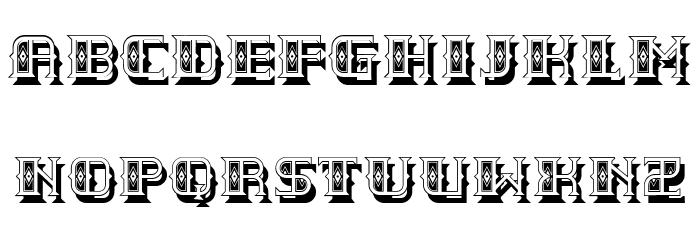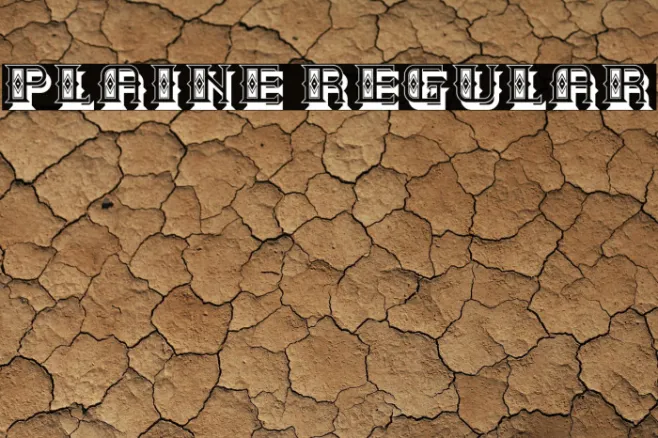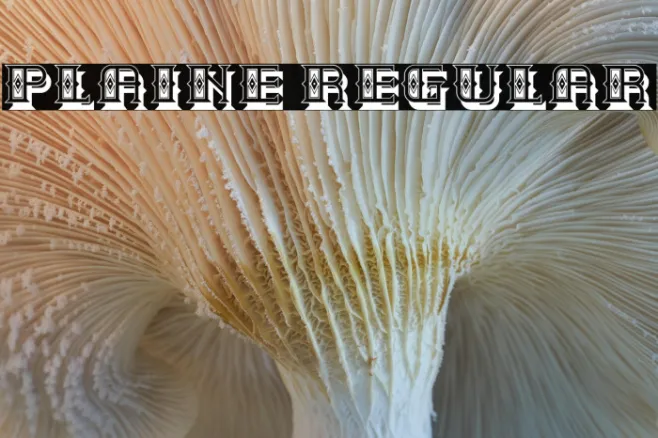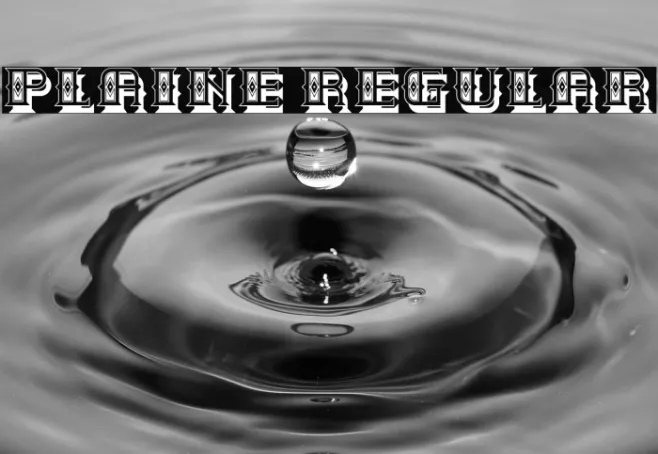
Plaine Regular Font
This font features a bold and decorative style with intricate patterns within each character, giving it a unique and eye-catching appearance. The letters are outlined with a thick black border, enhancing their visibility and impact. The internal detailing includes geometric shapes and lines, adding a layer of complexity and elegance. This font is reminiscent of vintage or gothic styles, making it suitable for projects that require a dramatic and artistic flair. The uppercase letters are consistent in height and width, providing a uniform look across the text.
A bold, decorative font with intricate internal patterns and a vintage flair.
- Font: Plaine Regular
- Proposed Projects: Ideal for poster designs, album covers, branding for vintage-themed events, or any project needing a dramatic and artistic touch.
- Overall Style: Vintage, Decorative